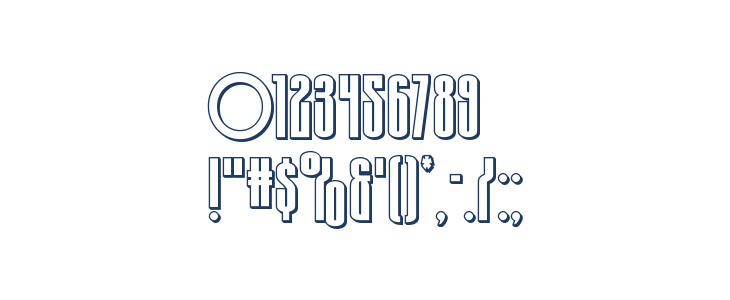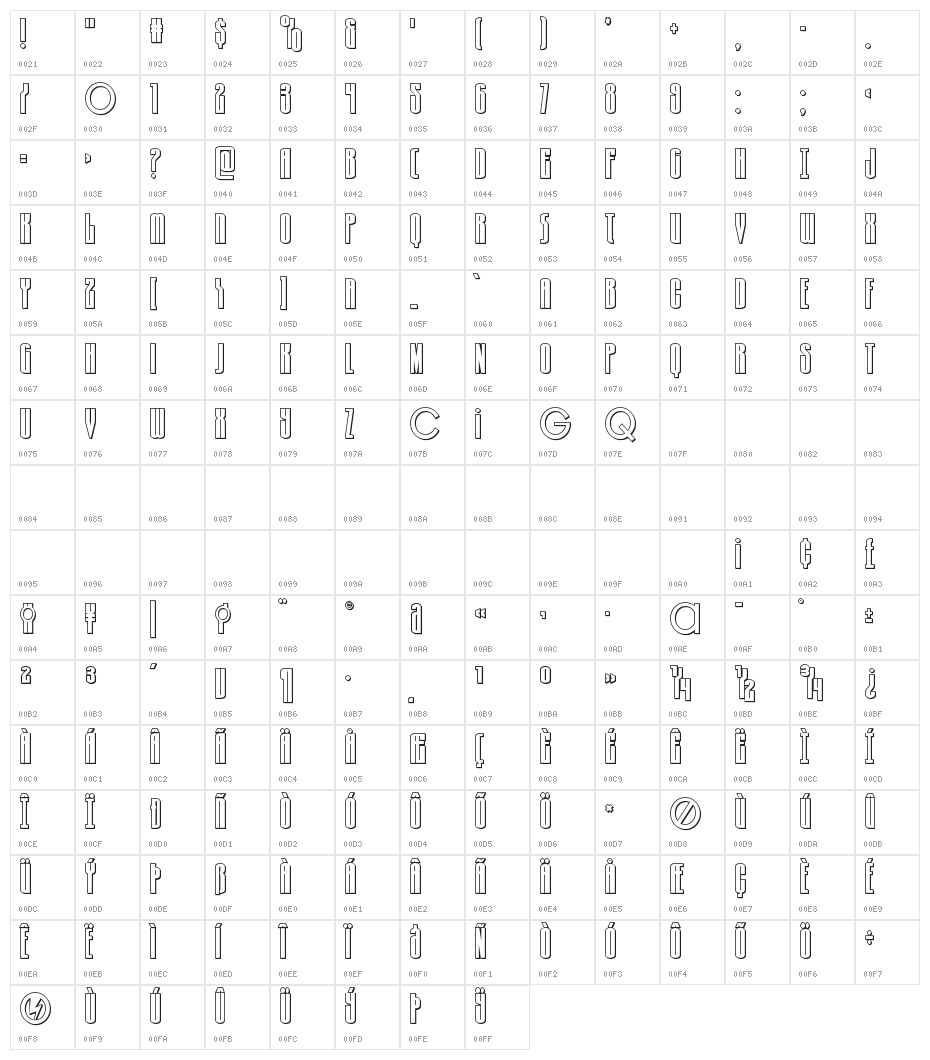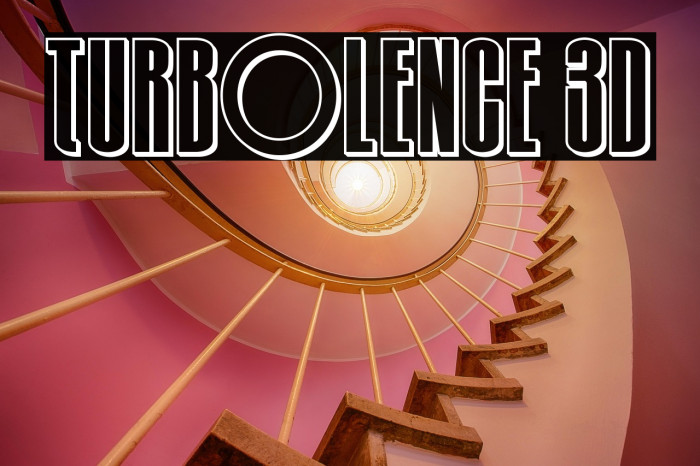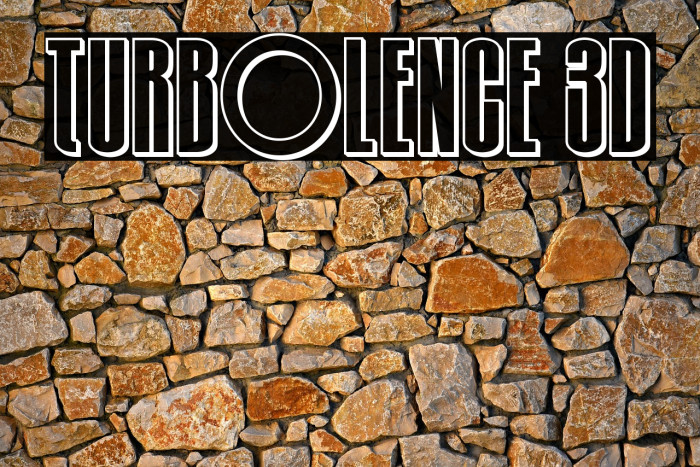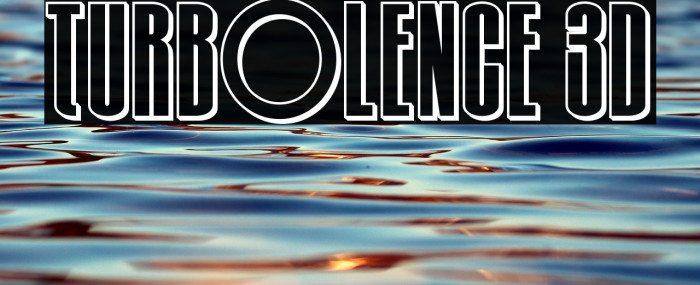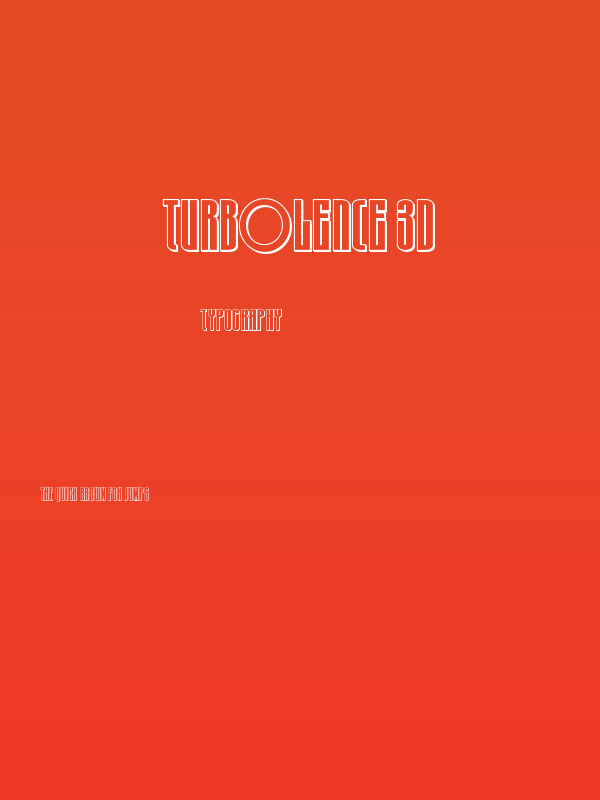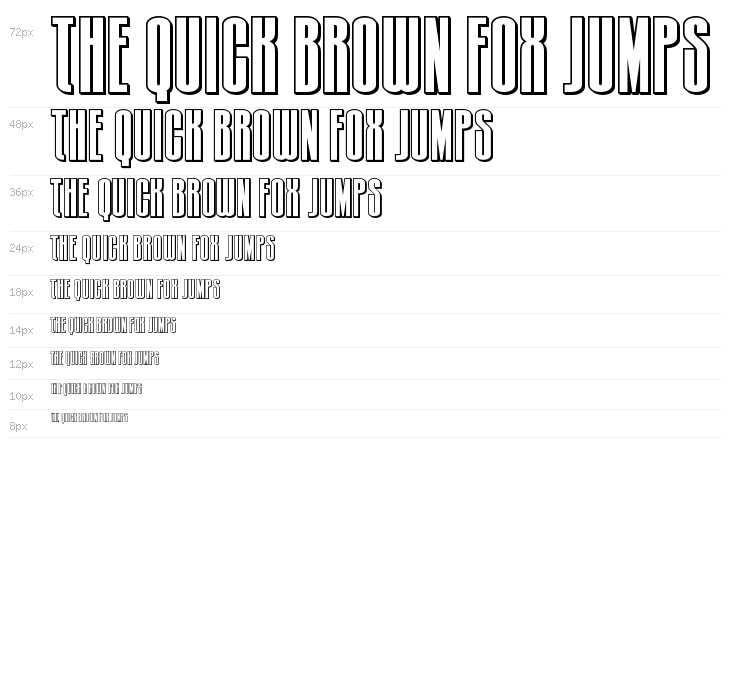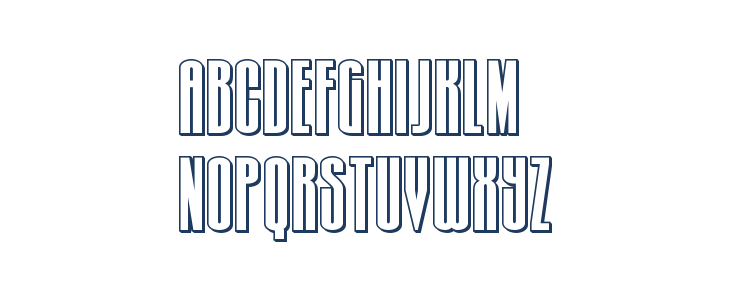
Turb0lence 3D Font
Turb0lence 3D Description
This font features a bold, three-dimensional style with a strong, impactful presence. The characters are outlined, creating a sense of depth and dimension. The uppercase letters are tall and narrow, giving a condensed appearance, while the numbers and special characters maintain the same bold, outlined style. This font is highly decorative, making it suitable for eye-catching designs. The consistent stroke width across all characters ensures a uniform look, while the outlined effect adds a layer of complexity and visual interest.
| Proposed Projects | Ideal for poster designs, logos, headlines, and any project requiring a bold, attention-grabbing typeface. |